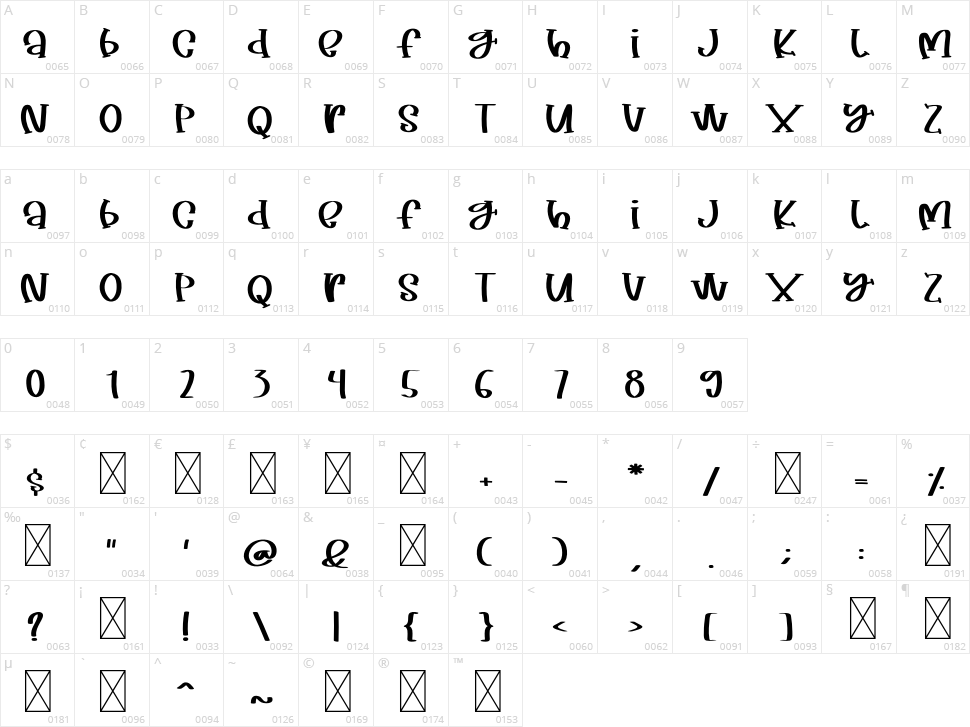
Tasty food font
Introducing Tasty Food Font:
We are going to introduce the best typeface that belongs to the Handwritten typeface family. The name of this typeface is Tasty Food Font. This wonderful typeface was designed and published by Fontles.
This typeface is very suitable for any kind of design project because this typeface texture look is very attractive and wonderful.
Moreover, this elegant typeface has more the 90 different characters. This awesome typeface has been comprised of two styles: uppercase, lowercase, decorative glyphs, numbers, symbols, icons, and punctuations.
This font style is mostly used in headlines, creating images, printing designs, visiting cards, and many more.